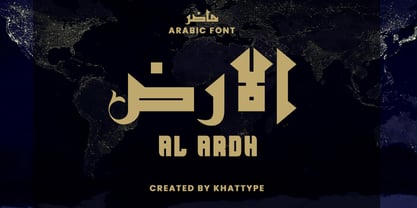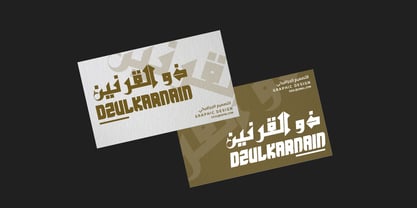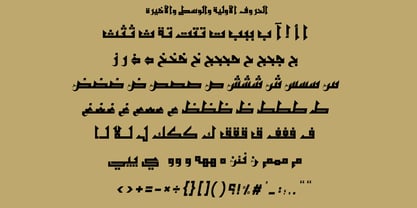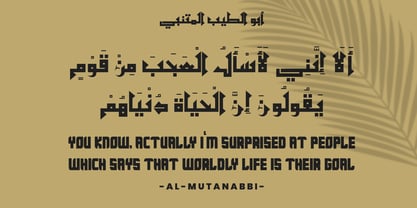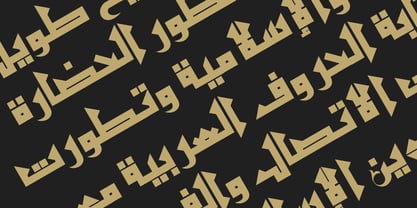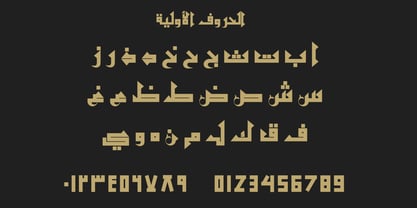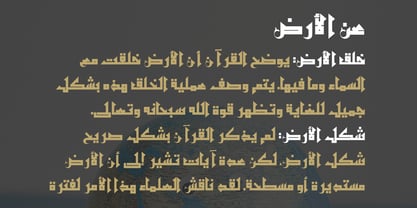
Al Ardh
by Khat Type
The Al Ardh Font Family was designed by Mohamad Shadiq and published by Khat Type. Al Ardh contains 2 styles and family package options. More about this family
Al Ardh, which is the Arabic word for 'Earth', is an Arabic display font with a contemporary letterform design inspired by the Kufic script. Rakan is suitable for modern applications such as advertising, branding and publication design. The typeface includes 4 weights (Regular, Regular Italic, Thin and Thin Italic) and supports Windows, Mac and mobile applications. If you need the thin and italic style, please contact me
Designers: Mohamad Shadiq
Foundry: Khat Type